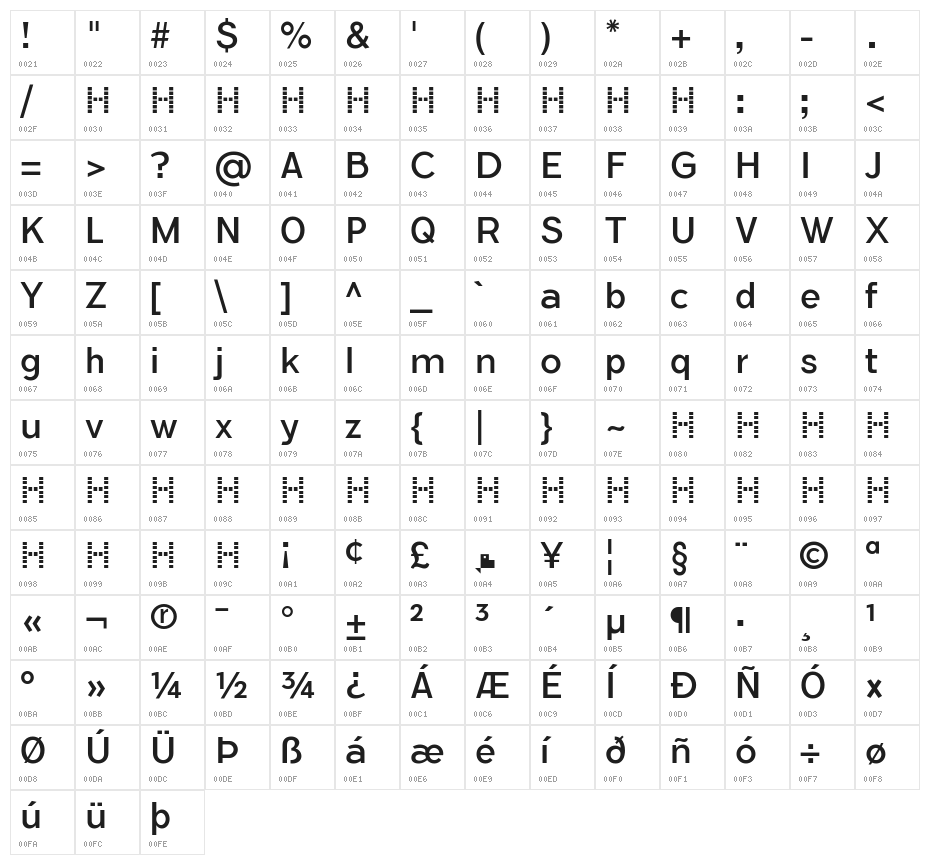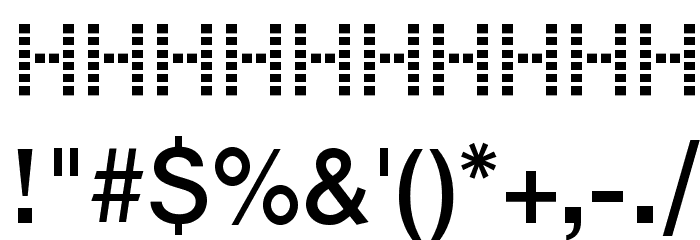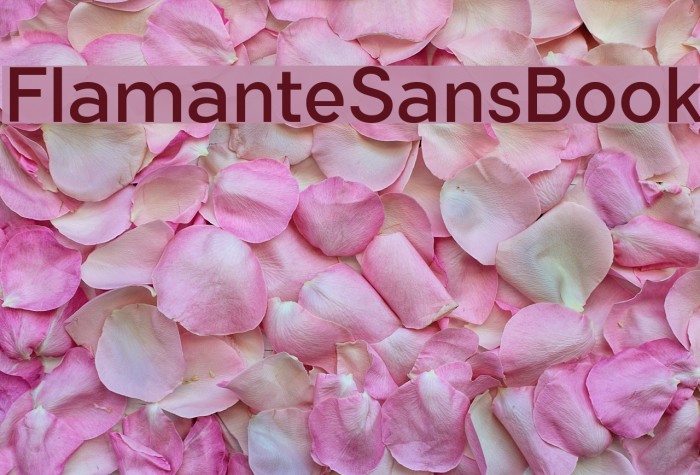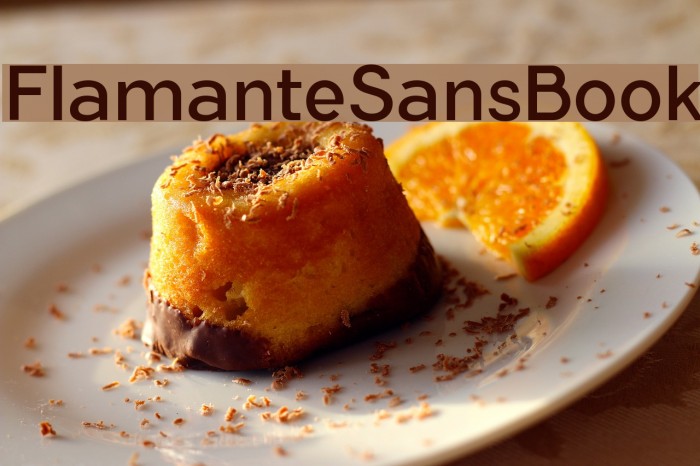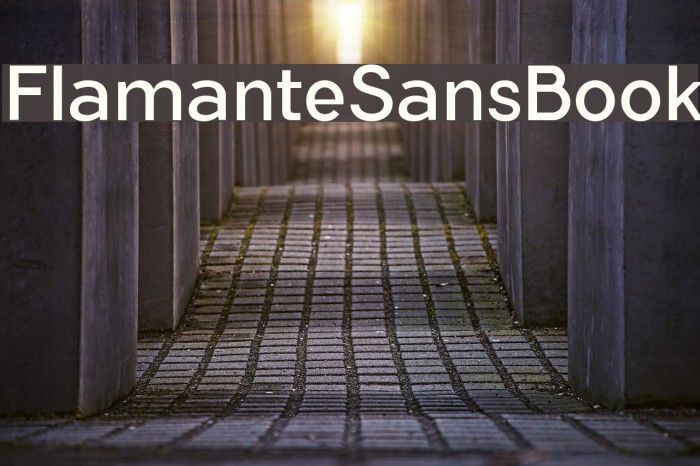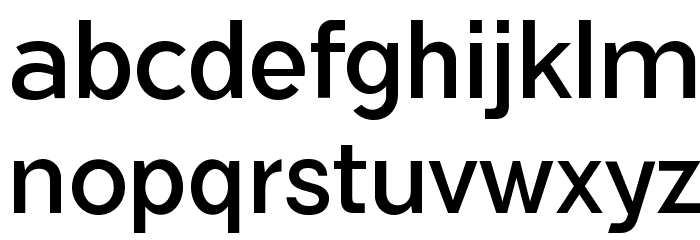
FlamanteSansBook Font
FlamanteSansBook Description
This font presents a clean and modern sans-serif style, characterized by its simplicity and readability. The uppercase letters are bold and well-defined, offering a strong presence, while the lowercase letters maintain a consistent and harmonious flow. The numerals are clear and distinct, ensuring legibility in various contexts. Special characters are designed with precision, complementing the overall aesthetic. The font's uniform stroke width and balanced proportions make it versatile for a wide range of applications.
| Proposed Projects | Ideal for corporate branding, web design, editorial layouts, and signage due to its clarity and modern appeal. |